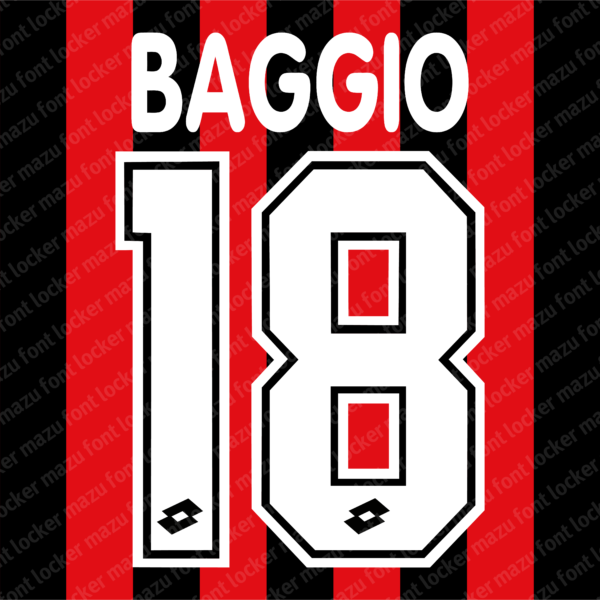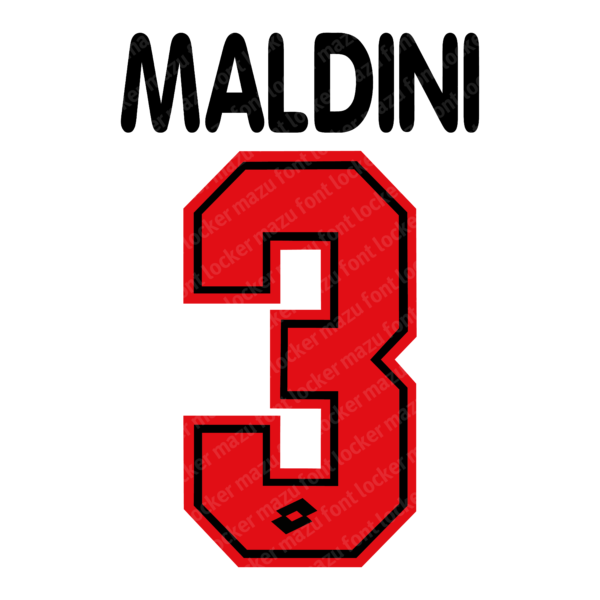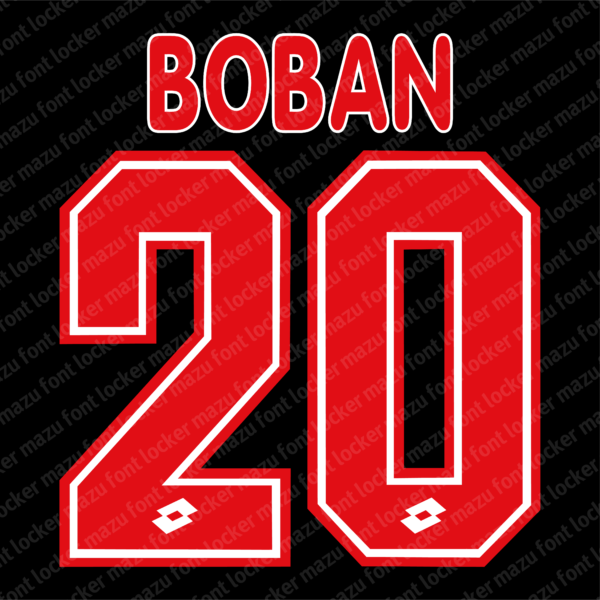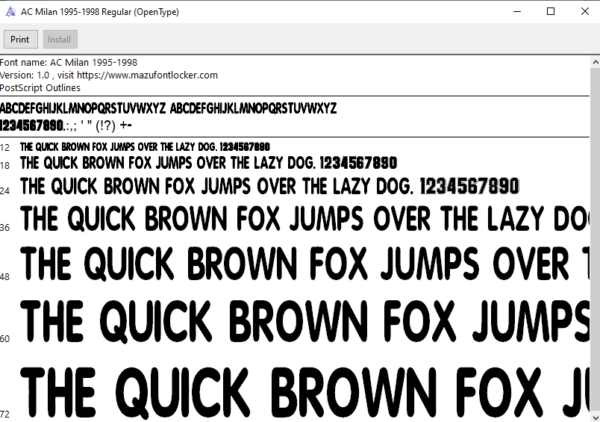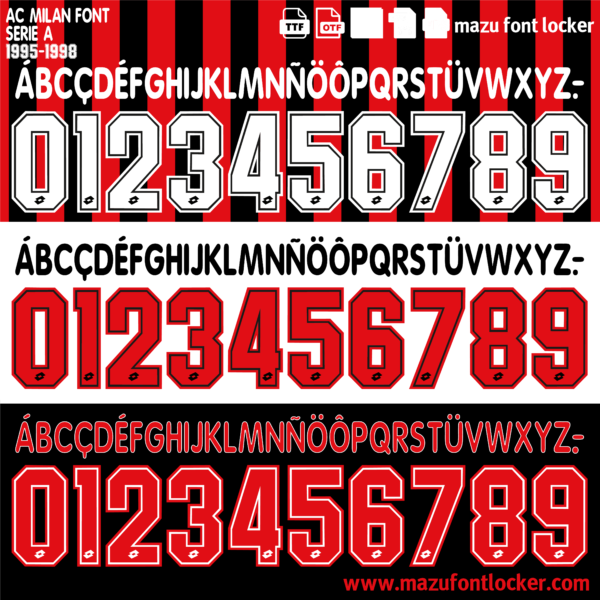
AC Milan 1995-1998 Font Vector – Stunning Golden Era Masterpiece
Download the AC Milan 1995-1998 Font Vector (AI, EPS, SVG, PDF, OTF, TTF) and powerfully recreate the bold, elegant, and ultra-dominant match-style lettering worn by the Italian giants during their legendary 1995-1998 era. This font captures the sophisticated and commanding typography that embodies the fierce red-and-black Rossoneri spirit, delivering unmatched authenticity, Italian excellence, and historic prestige for premium jersey mockups and football designs.
AC Milan 1995-1998 Font Vector – Authentic Rossoneri Typeface
Download the AC Milan 1995-1998 Font Vector and powerfully recreate the bold and dynamic match-style lettering worn by the AC Milan squad during their iconic 1995-1998 era. This font captures the strong, elegant, and commanding typography that embodies the passionate red-and-black Rossoneri spirit, delivering unmatched authenticity for premium jersey mockups and football designs.
Why Choose AC Milan 1995-1998 Font
This font stands out because of its sharp details and legendary club identity. Every letter and number is crafted to match the exact style used on the players’ shirts during the golden 1995-1998 period. Whether you are making realistic retro shirt templates or nostalgic football content, the AC Milan 1995-1998 Font gives your designs that authentic Rossoneri royalty.
The letterforms in the AC Milan 1995-1998 Font are tall, bold, and highly refined. The strokes have a strong yet elegant weight that looks powerful and prestigious on the back of jerseys while maintaining excellent clarity and sophistication.
The numerals use clean curves and firm edges, giving them a confident and premium appearance. This design ensures great legibility whether used in large print formats, digital mockups, or video content.
• Full uppercase A–Z and numbers 0–9 in authentic AC Milan 1995-1998 style
• Special AC Milan crest glyph for accurate shirt number detailing
• Create highly realistic AC Milan 1995-1998 jersey mockups with accurate lettering
• Design stunning retro matchday posters, score graphics, and squad announcements
• Produce custom Rossoneri merchandise with a classic and premium aesthetic
AC Milan 1995-1998 Era
During the golden 1995-1998 period, AC Milan, proudly known as I Rossoneri, stood as one of the most feared and respected forces in European football. This era marked the final glorious chapter of Milan’s legendary 1990s dynasty. Under the tactical mastery of Fabio Capello (with Arrigo Sacchi’s influence still lingering), the club assembled a near-perfect blend of ironclad defense and creative attacking brilliance.
Featuring football immortals such as Paolo Maldini, Franco Baresi, Alessandro Costacurta, George Weah, Roberto Baggio, Demetrio Albertini, and Marco van Basten in his final seasons, Milan delivered unforgettable performances. They clinched the 1995-96 Serie A title, reached the UEFA Champions League semi-finals multiple times, and showcased one of the greatest defensive units in football history — often dubbed “The Wall.” For the latest news and updates about AC Milan, visit the official AC Milan website.